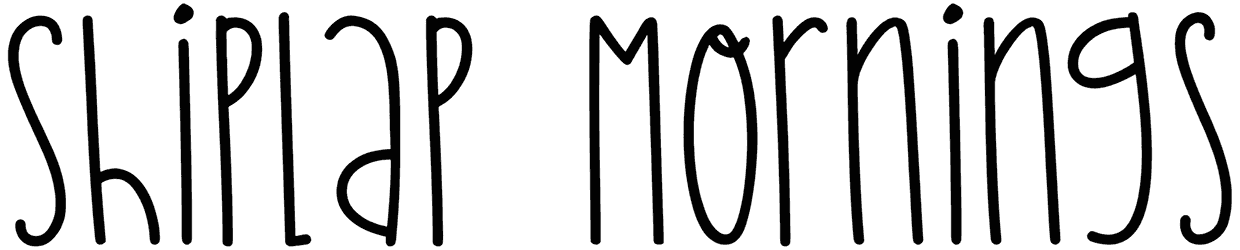
SS Shiplap Mornings Font
You don’t need to worry about the attractive part of your design because this cute doodle font has this aspect. The SS Shiplap Mornings font with its playful letters can impress your followers, and that’s what any design…
You don’t need to worry about the attractive part of your design because this cute doodle font has this aspect. The SS Shiplap Mornings font with its playful letters can impress your followers, and that’s what any designer wants, right? Let’s try it for your creative idea, like a kids’ zone poster, a daily Instagram post, or whatever you want, and become memorable.
Shiplap Mornings is a qute, tall and skinny handwritten font perfect for farmhouse lettering projects and more! Free for personal use.